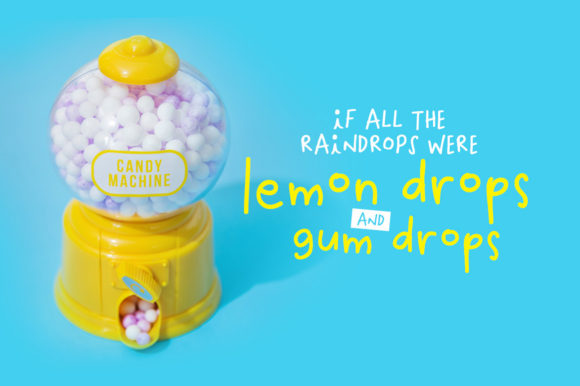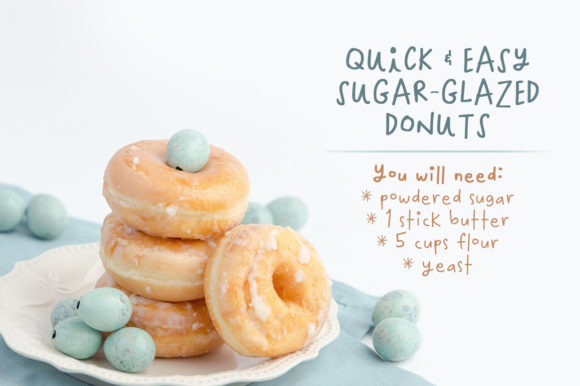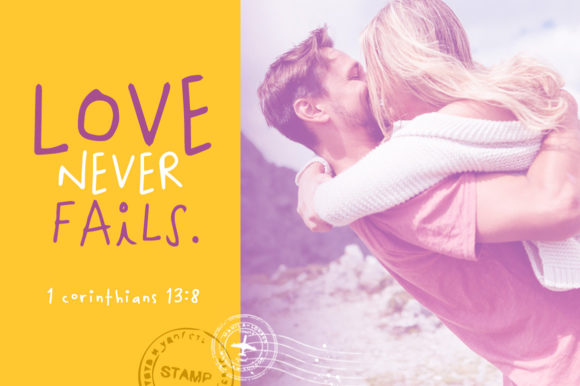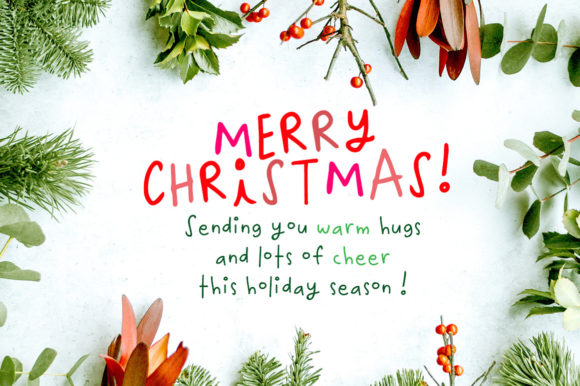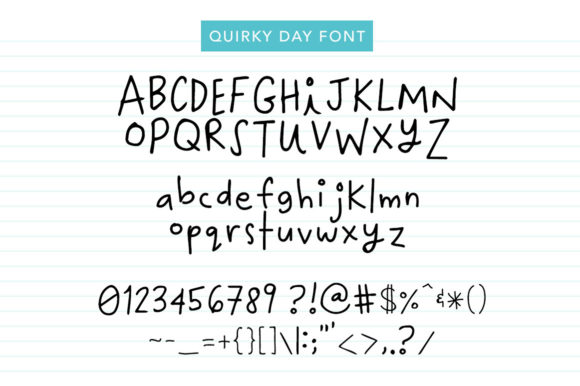
Quirky Day Font
About Quirky Day Font
Quirky Day is a perfectly imperfect handwritten font with a uniquely whimsical charm. Get inspired by its bold feel, and turn any design project into a stand out!